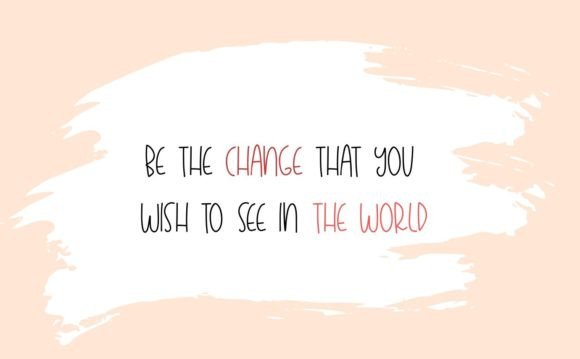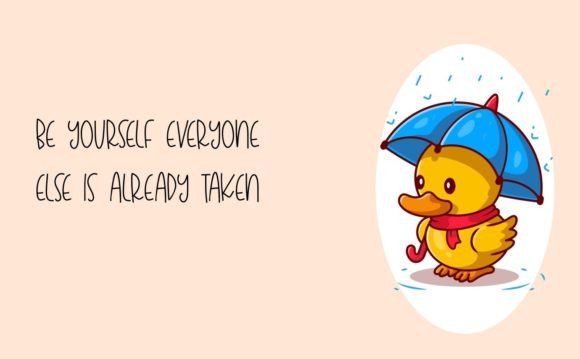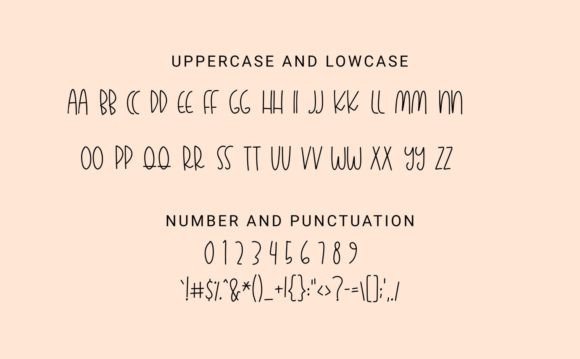
Adding a Touch of Whimsy: The Magic of Baby Cute Font
You know that moment when you’re working on a project and you just can’t seem to find the right font to bring it all together? The words are there, the design is in place, but something’s missing? That’s where the Baby Cute Font comes in – a sweet, chic, and friendly handwritten font that’s sure to add a touch of whimsy to your creations.
This delightful font is perfect for adding a personal touch to your designs, whether you’re creating digital art, crafting a logo, or writing a heartfelt letter. With Baby Cute Font, you can breathe new life into your projects and make them truly special. Its unique charm and character make it a valuable addition to any designer’s toolkit.
Baby Cute Font Key Features
- Unique Characteristics: The font features adorable, rounded shapes and playful letterforms, making it perfect for designs targeting young audiences
Baby Cute Font Review
I recently had the chance to work with the “Baby Cute Font” and I must say, it’s a mixed bag. ✨ Here are some things that I think work well:
- Adorable aesthetic: The font is designed to look cute and playful, which makes it perfect for children’s products, nursery decorations, or any project that needs a touch of whimsy.
- Wide character set: The font includes a wide range of characters, including uppercase and lowercase letters, numbers, and punctuation marks.
- Limited scalability: The font looks great at small sizes, but it can become distorted when scaled up, which may not be ideal for larger projects.
- No bold or italic variants: The font is designed to be a single weight, which can make it less versatile than other fonts.
- Not suitable for body text: Due to its playful nature, the font may not be the best choice for large blocks of text, as it can be distracting and hard to read.
Overall, I think the “Baby Cute Font” is a fun and quirky addition to any project, but it’s not a font that I would use for everyday body text. It’s perfect for titles, headings, and other design elements where a playful touch is needed.
Getting the Most Out of Baby Cute Font
To get the most out of Baby Cute Font, try combining it with other playful fonts and graphics, such as illustrations or icons.
Use it for baby-related projects, such as nursery decorations, baby announcements, or children’s book covers.
Experiment with different font sizes, colors, and styles to create a unique and eye-catching design.
Some common use cases for Baby Cute Font include:
1. Baby announcements and invitations
2. Nursery decorations and wall art
Q: Can I customize the Baby Cute Font?
Yes, you can customize the Baby Cute Font to suit your design needs. The font includes a range of OpenType features, such as ligatures, swashes, and ornaments, which can be accessed using your design application’s font panel or menu. You can also use font editing software, such as FontLab or FontForge, to customize the font further.